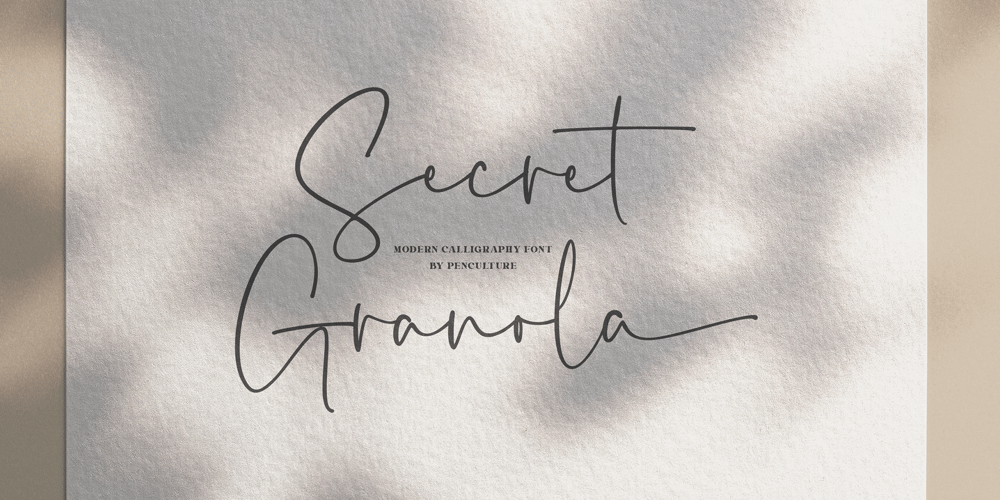
Secret Granola Font Family was designed by Revo Farsiky and published by Pen Culture. Secret Granola contains 1 styles and family package options. Introducing Granola. A modern calligrphy font with modern and lovely style of script font. This font comes with more than 50 ligatures and more than 20 alternates, so you will find it very easy to mix and match this font in your projects. This font will be very suitable for branding, logo design, magazines, posters, invitations and much more.I really hope you enjoy it – please do let me know what you think, comments & likes are always hugely welcomed and appreciated. More importantly, please don’t hesitate to drop me a message if you have any issues or queries.Thanks